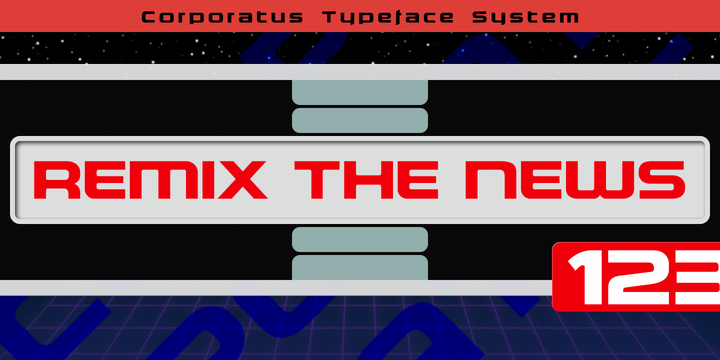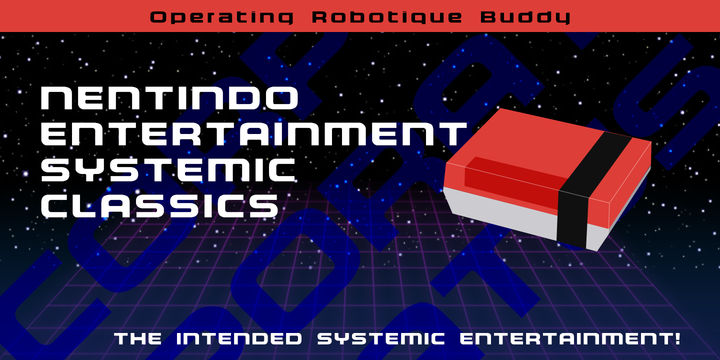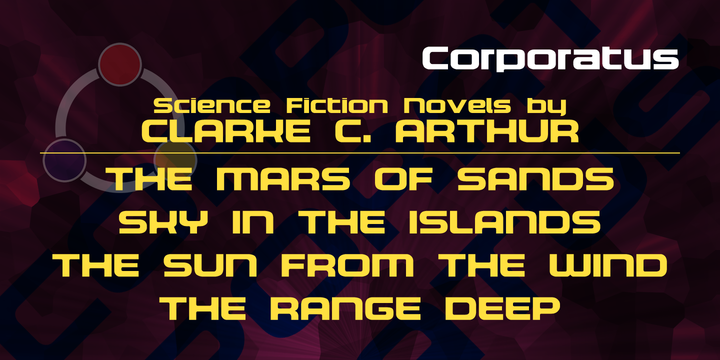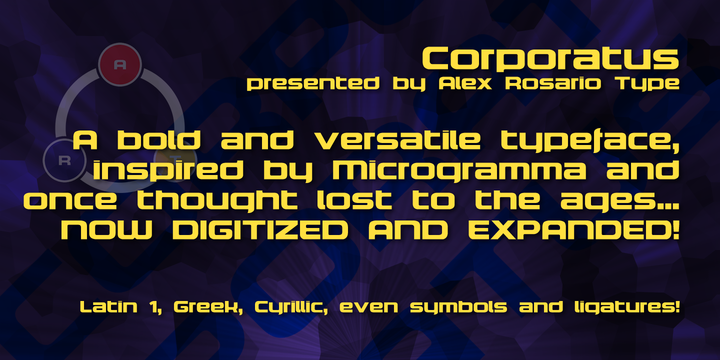
The legendary retro-futuristic typeface returns, now in digital format! While there may be copycats of varying quality, none of them have taken the time and care to revive, reproduce, and expand the original Roc Mitchell Corporate typeface by like Corporatus has.
Made directly from scans of the original type specimens and expanded to include the full WGL4, Corporatus is YOUR solution for your retro, futuristic, and corporate design needs.
Descended from Microgramma and originally designed to be the American competition to distant cousin Eurostile, Corporate and subsequently Corporatus is most well-known for being the typeface used by video game developer and publisher Nintendo for many NES-related media in the West, including its controllers, and by Colecovision for its logo.
More With the original Latin character set as well as Greek and Cyrillic lettering available, now you're playing with TYPOPOWER!